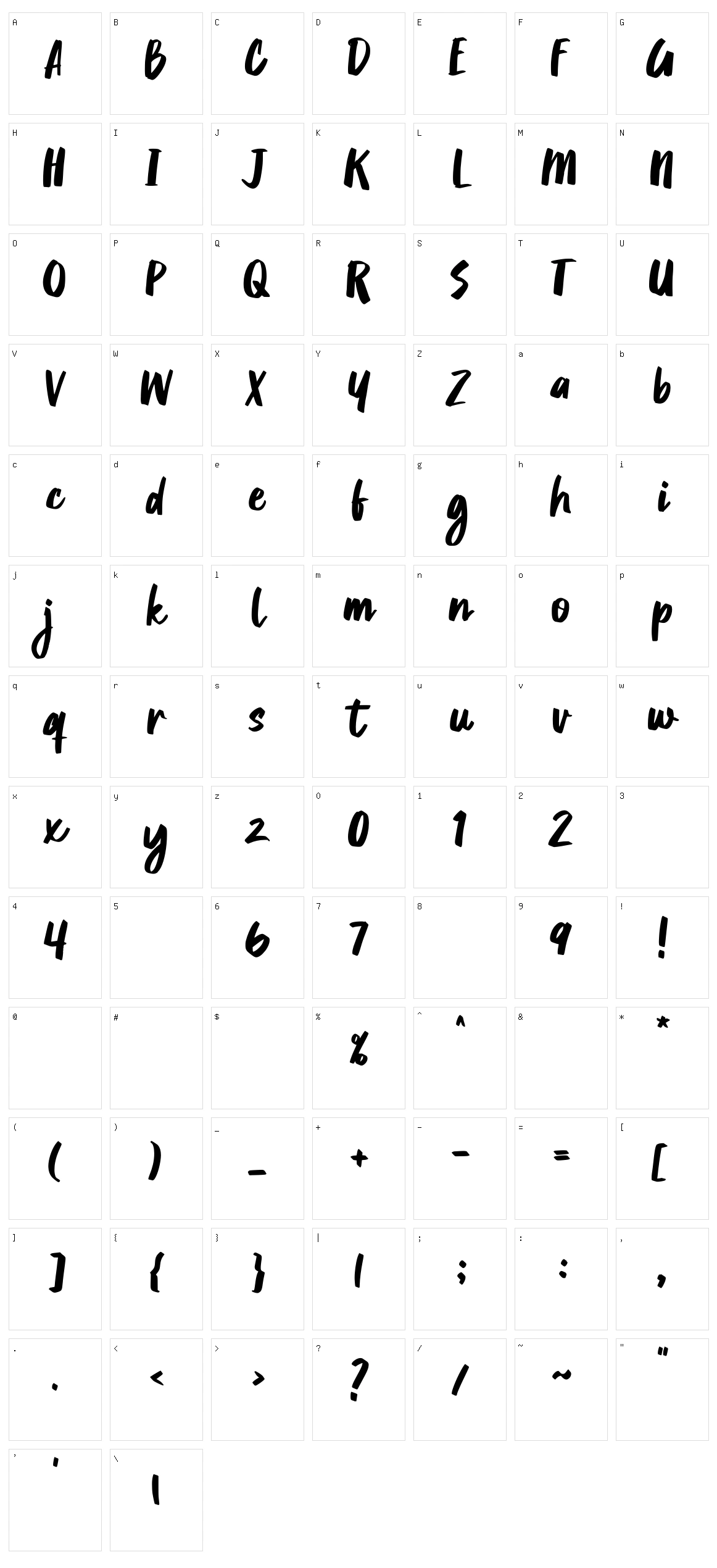
The free font Roselle is carefully designed by Gassstype, showcasing a thoughtful balance of creativity and usability and falls under the Script font style. When you download the ZIP file, it contains only 731.59 KB of font files, making it lightweight and quick to download. Please review the license details below to understand permitted usage and distribution rights. If license information is not available, we recommend using this font for personal projects only or contacting the author directly for commercial usage permissions.